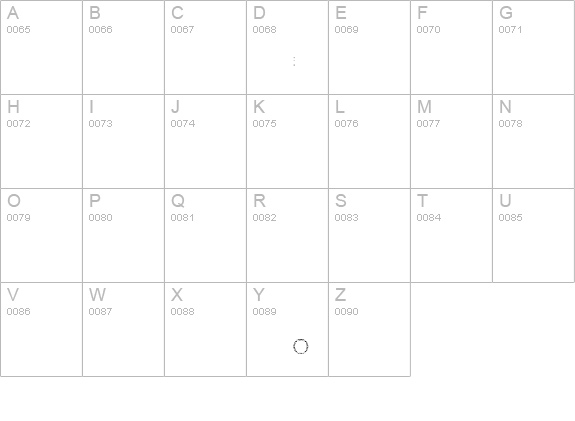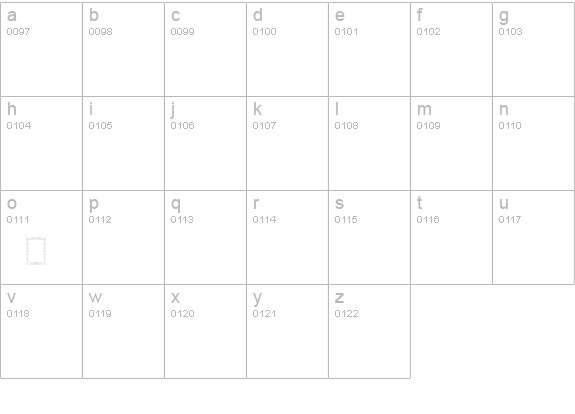
PFOrnmTreasures3-Layer8 font is a beautifully intricate and ornate typeface that will add a touch of elegance to any design project. With three layers of exquisite detailing, this font is perfect for creating eye-catching titles, headers, and decorative elements. The elaborate swirls and flourishes give a sense of opulence and sophistication, making it ideal for luxury branding, invitations, and signage. Best of all, PFOrnmTreasures3-Layer8 font is available for free download at FontsMarket.com. Whether you're a designer looking to elevate your projects or a hobbyist wanting to add a touch of flair to your creations, this font is a must-have in your toolkit. Don't miss out on the opportunity to enhance your designs with this stunning and versatile typeface. Download PFOrnmTreasures3-Layer8 font today and let your creativity shine!